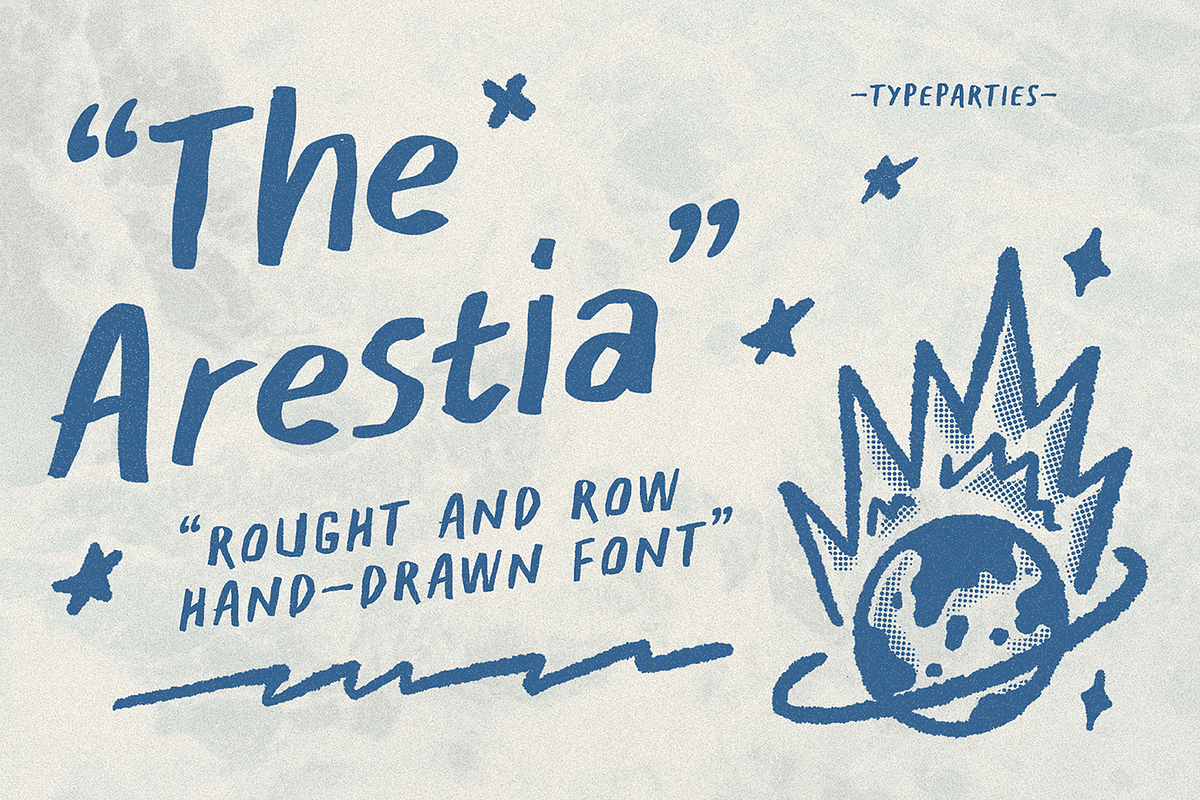
Arestia - rough handwritten font Free Download
Arestia - Rough Handwritten Font Free Download
Please note, you must purchase this font for commercial use. However, you can easily download Arestia - Rough Handwritten Font Free Download for personal use and testing purposes. Arestia - Rough Handwritten Font is a bold and expressive typeface with a raw, hand-drawn style that gives your designs an authentic, artistic touch. Perfect for creative projects, branding, social media graphics, logos, and invitations, this font brings a unique, casual vibe to any design. Its rough strokes and imperfect edges make it ideal for projects that need a personal, hand-crafted feel. Whether you're designing for a creative brand, a quirky event, or a personalized project, Arestia - Rough Handwritten Font Free Download will add character and energy to your typography. Download Arestia - Rough Handwritten Font Free Download today and explore its potential before opting for a commercial license.